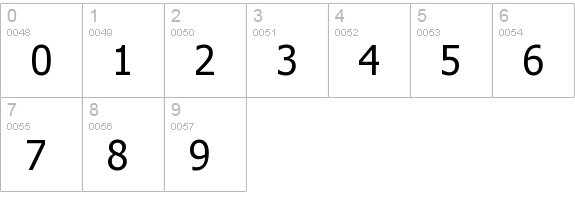
InstallFont is a stunning and versatile font that is perfect for any project or design. With its elegant and modern look, this font instantly adds a touch of sophistication to any text. Whether you're creating a logo, designing a website, or crafting a brochure, InstallFont will make your work stand out. What sets InstallFont apart is not only its aesthetic appeal but also its accessibility. This font is freely available to download at FontsMarket.com, making it a fantastic choice for designers on a budget. You can elevate your design without having to spend a dime. With its clean lines and smooth curves, InstallFont is incredibly legible, ensuring that your message is conveyed clearly and effectively. Its wide range of weights and styles allows for versatility and creativity in your designs. Whether you prefer a bold statement or a more subtle touch, InstallFont has you covered. Installing InstallFont is a breeze, thanks to its user-friendly nature. It is compatible with various design software and can be easily integrated into any project. The font's extensive character set includes all the necessary glyphs and symbols, ensuring that you have everything you need to bring your vision to life. Whether you're a professional designer or a hobbyist, InstallFont is a must-have font in your collection. Its timeless elegance and free availability make it a valuable asset for any creative endeavor. So don't wait any longer, head over to FontsMarket.com and download InstallFont today. Your designs will thank you.